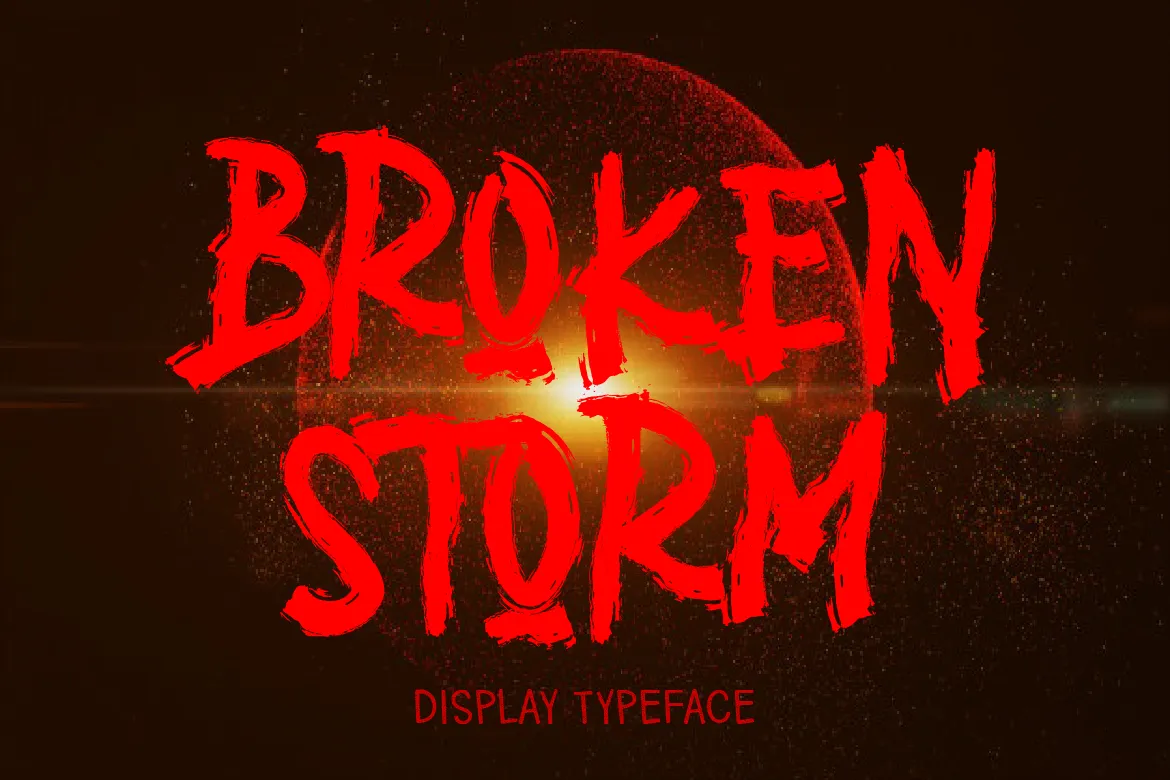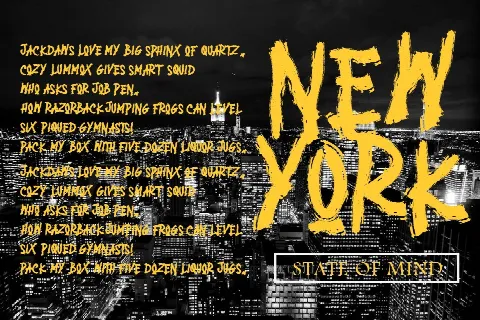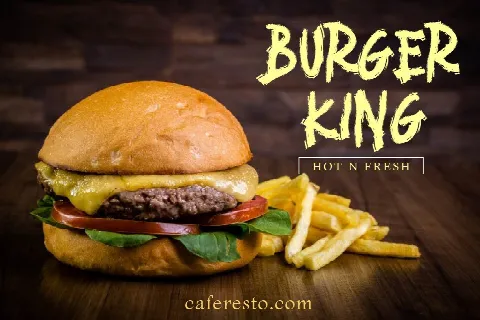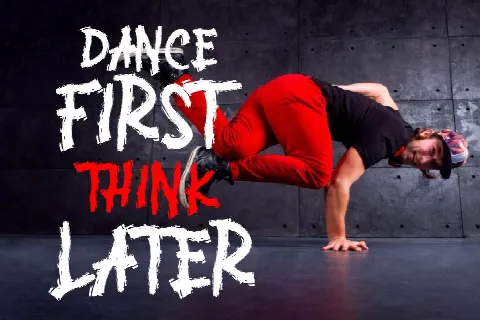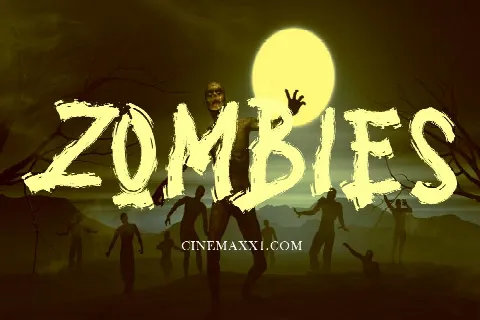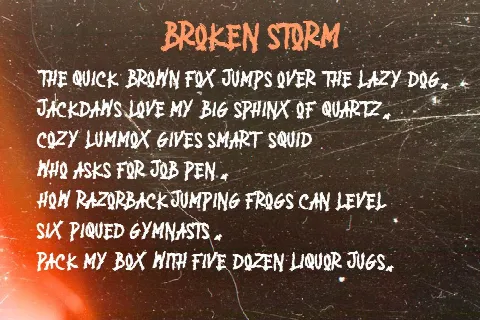
BROKEN STORM
Introducing
BROKEN STORM is a supercharged font, with natural brush, quick strokes and sharp details.
It's contains All Caps and numbers. Perfect for challenging jobs, titles, movie,logos, apparel, t-shirts, hoodies, quotes, product packaging, or anything that needs a typographic turbo-boost and a typographic unique style.